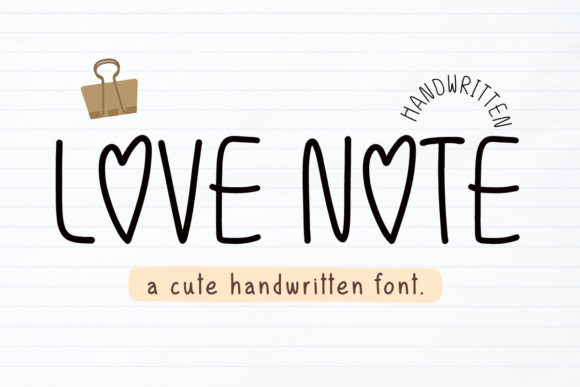
Journey into the world of Love Note Font, a mesmerizing handwritten font family that oozes charm and elegance. Created by the talented Khim08Studio, this script font is not just a collection of letters; it's an expression of love, creativity, and boundless possibilities.
Imagine your words, transformed into beautiful, flowing strokes that dance across the page, carrying your message with grace and allure. Love Note Font is the perfect companion for crafting heartfelt letters, designing enchanting invitations, and creating captivating social media posts.
With its timeless beauty, Love Note Font adds a touch of sophistication to any project. It's the ideal choice for creating personalized logos, eye-catching posters, and stunning website designs that demand attention. Let your imagination soar as you explore the endless creative opportunities that await.
Love Note Font is more than just a font; it's an experience. As you type, you'll feel the warmth and joy of the designer's hand, guiding your words into a visual masterpiece. It's the perfect font for those who want to make a lasting impression, to touch hearts, and to leave a legacy of love and creativity.
Whether you're a seasoned designer or just starting your creative journey, Love Note Font is your ideal companion. Its versatility knows no bounds, making it perfect for a multitude of applications. From crafting heartfelt messages to designing stunning visuals, Love Note Font elevates your words, transforming them into works of art.
Join the creative revolution and embrace the beauty of Love Note Font. Let your words dance with grace, your designs captivate hearts, and your imagination run wild. Experience the joy of creating with a font that speaks the language of love and creativity.